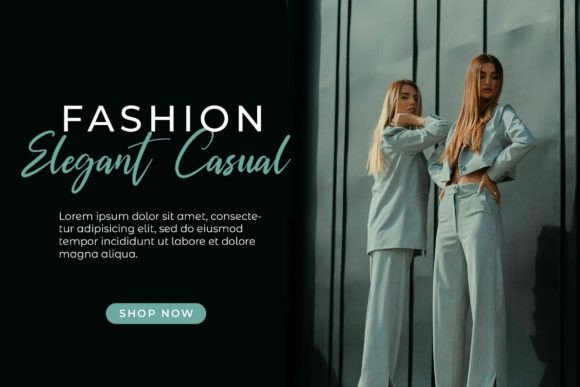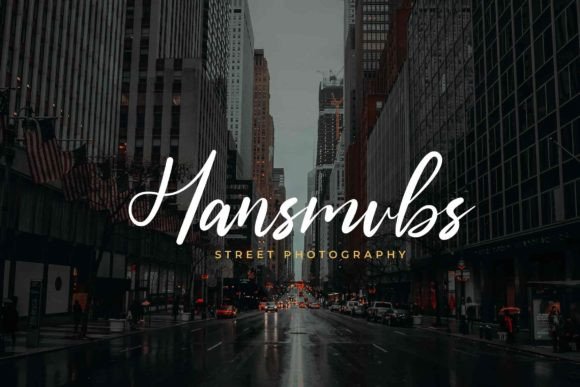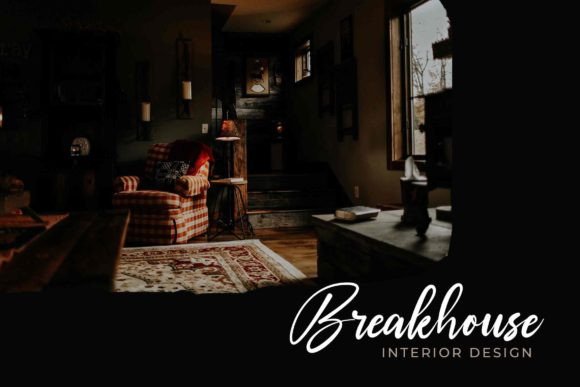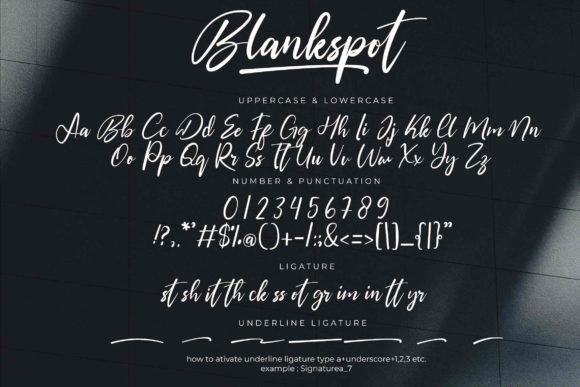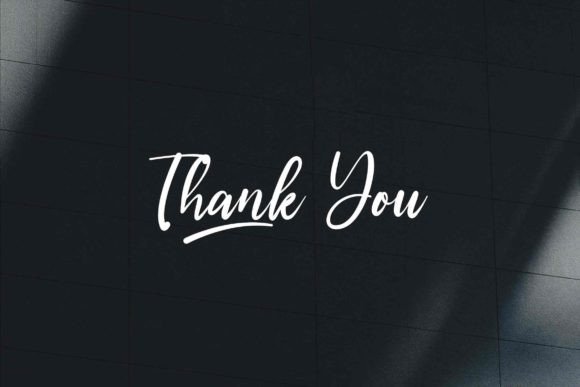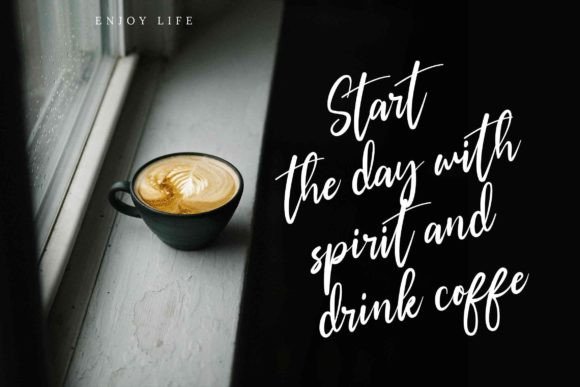
Blankspot Font
A Beautiful and Aesthetic Handwritten Script Font
The Blankspot Font is a beautiful and aesthetic handwritten script that brings an elegant and personalized touch to any design. Its smooth flowing strokes and charming style make it ideal for a wide variety of projects, from wedding invitations to branding materials. Whether you’re working on business cards, social media posts, or quotes, the Blankspot Font will elevate your designs with its graceful, timeless appeal.
Perfect for Wedding Invitations and Special Events
For wedding invitations and special events, the Blankspot Font is an excellent choice. Its elegant handwritten style adds a romantic, refined touch to your invitations, save-the-dates, or thank-you cards. Whether you’re hosting a formal wedding or a casual celebration, this font ensures your event stationery feels personalized and memorable. Its flowing script provides a beautifully crafted element that is perfect for setting the tone for your special day.
Ideal for Branding and Business Cards
The Blankspot Font works wonderfully for branding and business card designs. Whether you’re designing a luxury brand logo, creative business identity, or personal branding materials, this font adds a unique, artistic touch to your branding. Its aesthetic appeal and handwritten script style ensure your brand stands out with a professional yet friendly vibe. Perfect for businesses that want to convey creativity, authenticity, and personal connection.
Great for Social Media and Digital Content
For social media posts and digital content, the Blankspot Font adds an inviting and elegant touch to your designs. Whether you’re creating Instagram posts, Facebook ads, Pinterest pins, or blog graphics, this font ensures your content looks both stylish and approachable. Its clear script ensures readability even in smaller sizes, while its charming aesthetic draws attention, making it ideal for businesses and creatives looking to engage their audience on various platforms.
Perfect for Quotes and Inspirational Designs
The Blankspot Font is also perfect for creating motivational quotes and inspirational designs. Whether you’re designing posters, wall art, or quote graphics, this font brings an elegant, handwritten style that resonates with your audience. Its natural flow and beautiful letterforms make it ideal for expressive typography. Whether you’re adding quotes to your social media feed or creating artistic prints for a gallery or gift shop, this font makes your words come alive.
Elegant, Legible, and Versatile
Despite its elegant handwritten script design, the Blankspot Font remains legible and easy to use. The smooth strokes ensure that your text is clear and easy to read, even when used for longer passages or smaller sizes. Whether you’re using it for headlines, captions, or body text, this font strikes the perfect balance of creativity and readability, making it suitable for various design applications.
The Blankspot Font is easy to use and integrates seamlessly into most design software. Whether you’re working on branding, wedding invitations, social media content, or quotes, this font ensures your designs look polished and professional while maintaining a personal touch. Its versatility makes it perfect for both print and digital media, allowing you to use it across various projects with ease.
Add Elegance and Charm to Your Designs with Blankspot Font
If you’re looking for a beautiful handwritten script font that adds a personalized and elegant touch to your designs, the Blankspot Font is the perfect choice. Whether you’re designing wedding invitations, logos, social media posts, or quotes, this font brings a timeless and charming element to your work. Let the Blankspot Font help you create memorable, elegant designs that leave a lasting impression.